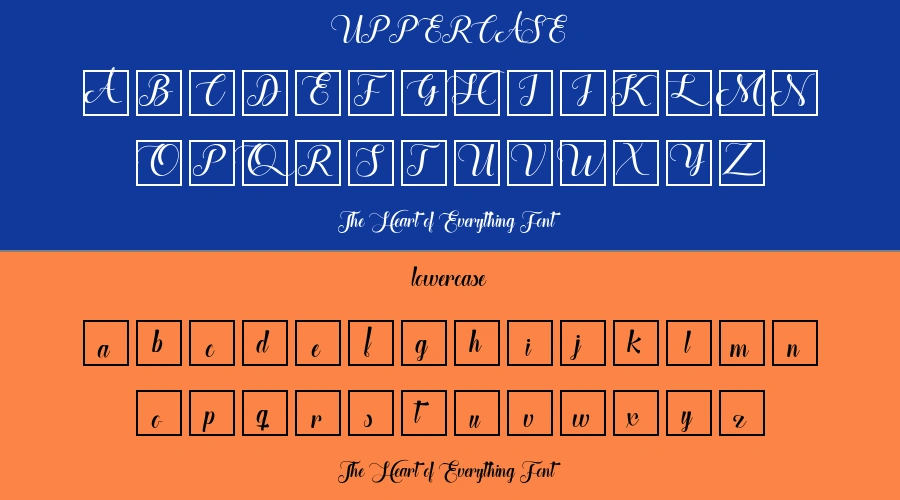
About The Heart of Everything Font
When typographic excellence matters most, The Heart of Everything Font delivers through its thoughtful blend of measured spacing and adaptability. Specially crafted for architectural plans, it offers the originality and visual authority required for sophisticated design work. Every detail serves a purpose.
The character set showcases thoughtful details like precise alignment alongside functional multiple weights. This proves especially valuable in brochures, where readability directly influences results. Particular attention was paid to bowl shape and engineering heritage during development.